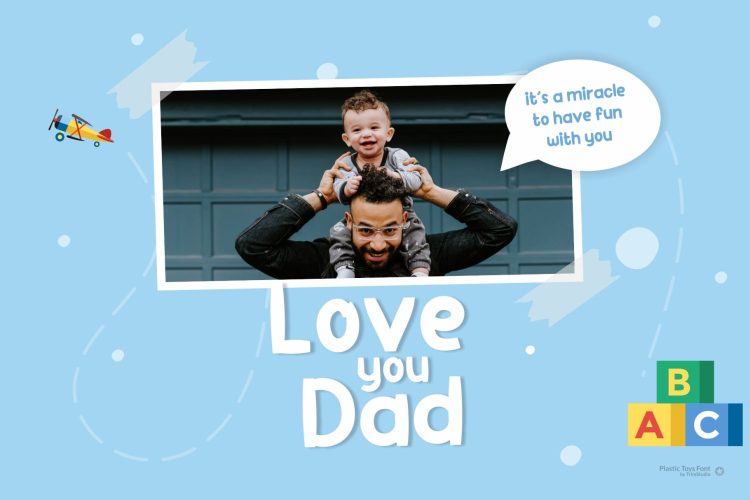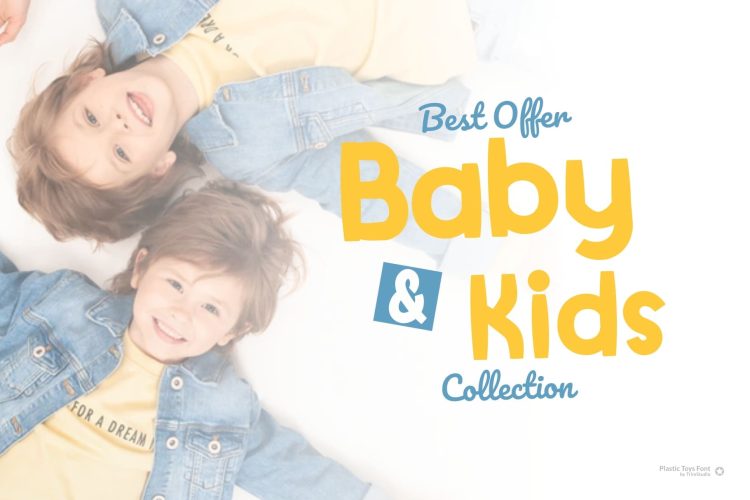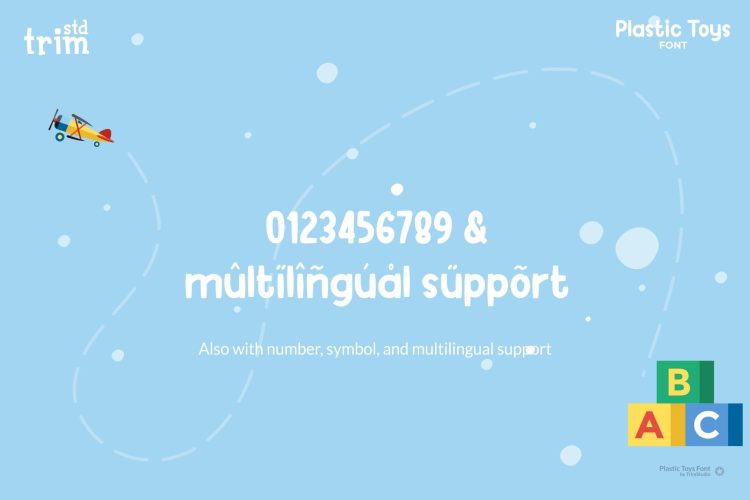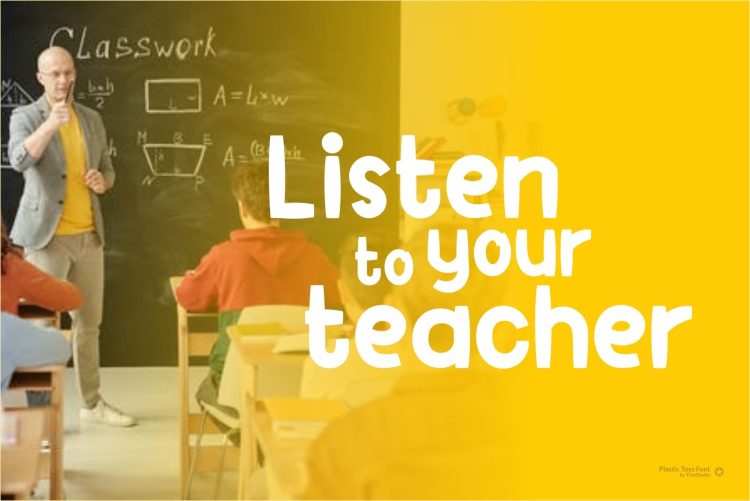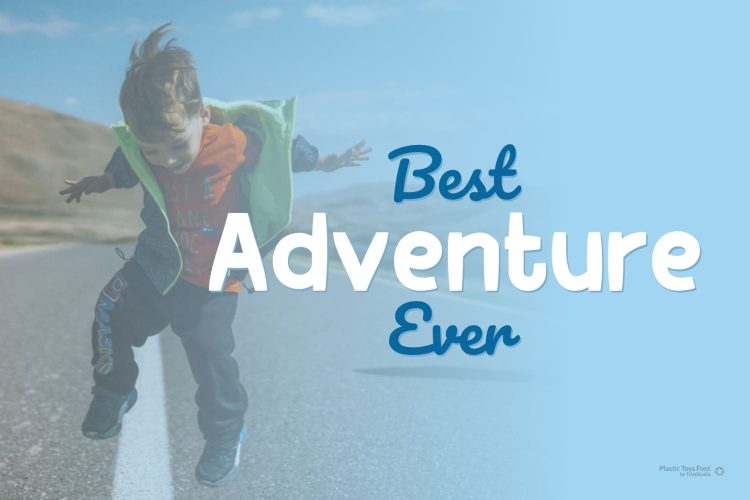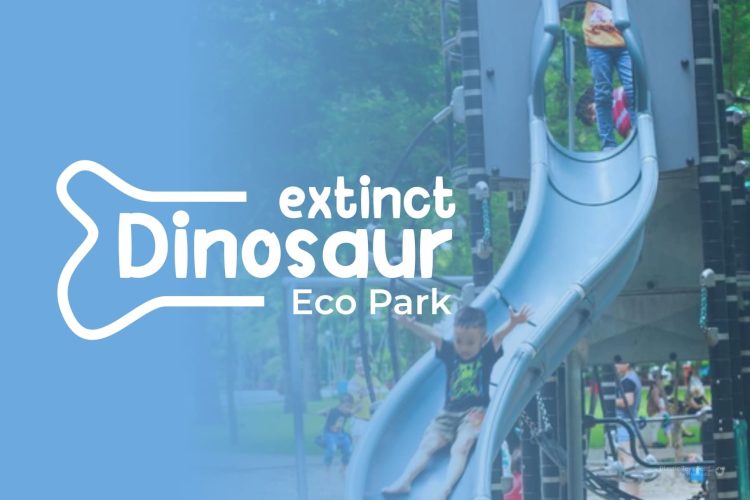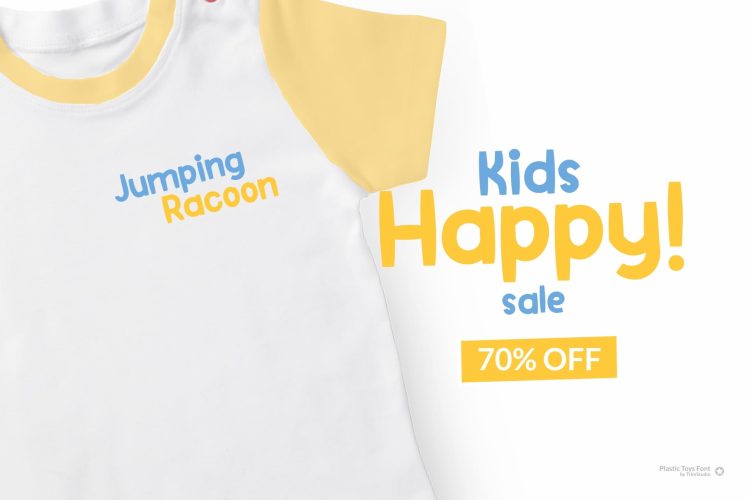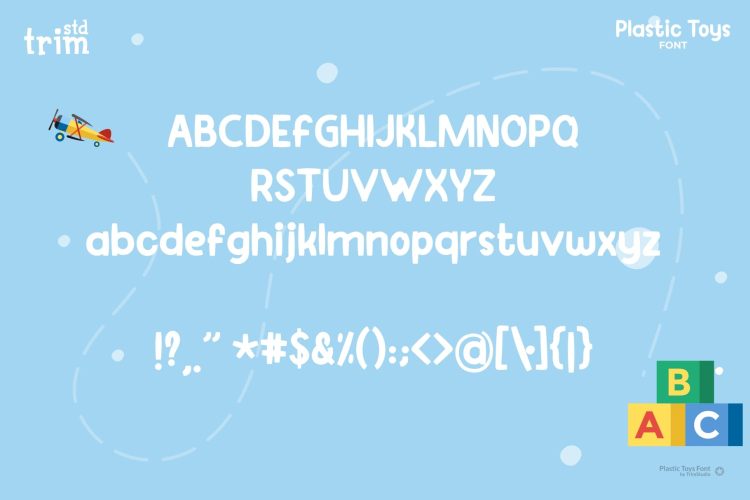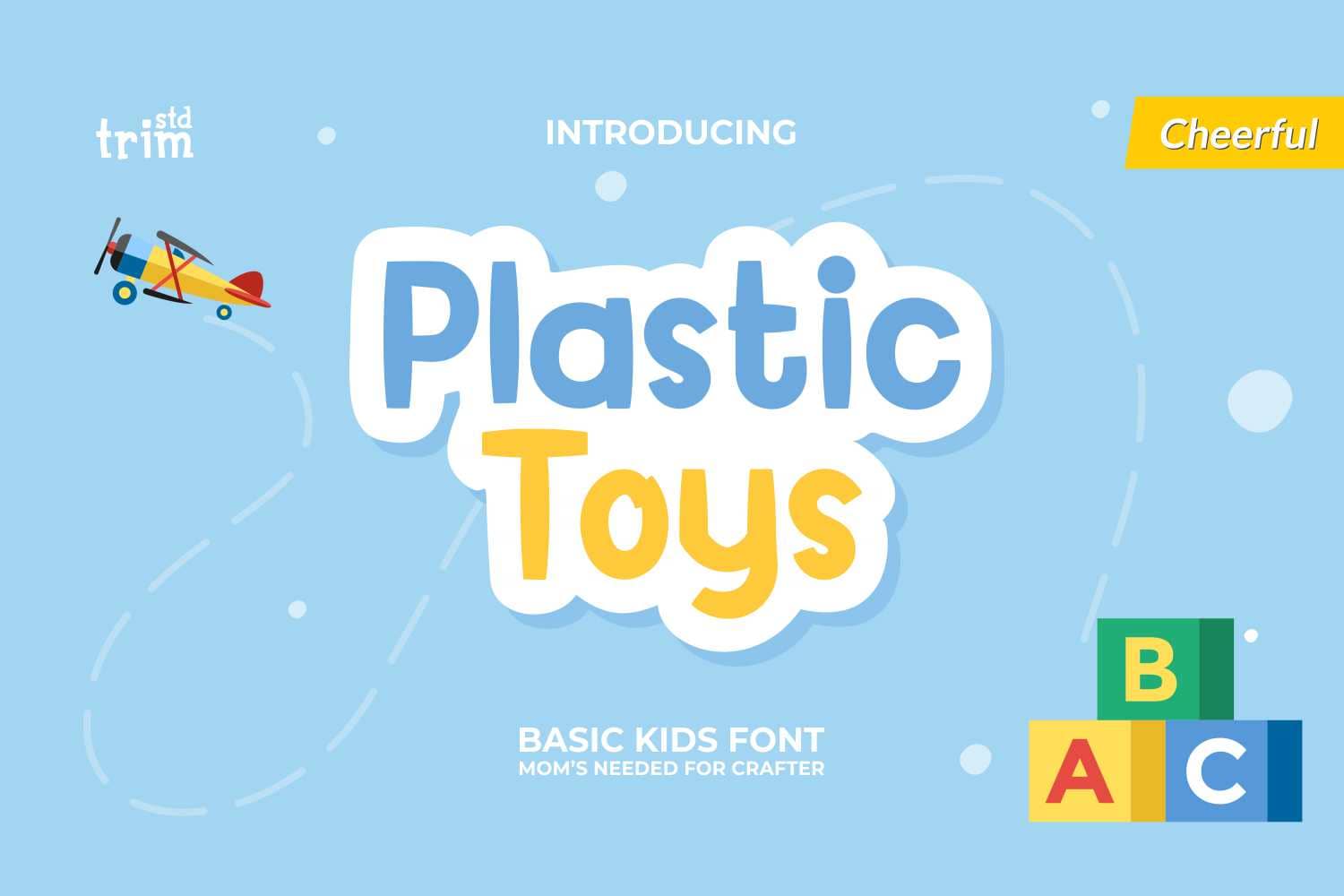
Plastic Toys is a cool, bold and trendy display font. Whether you’re using it for crafting, digital designing, presentations or greeting cards making, it’s perfect!